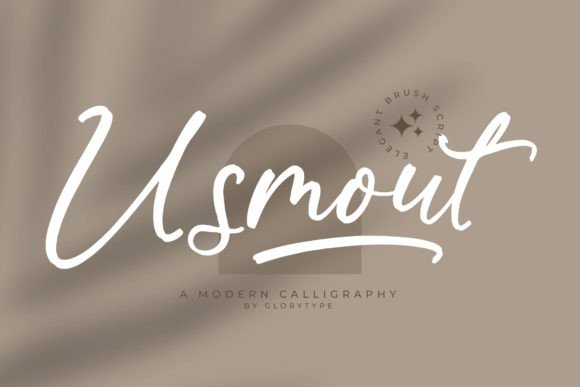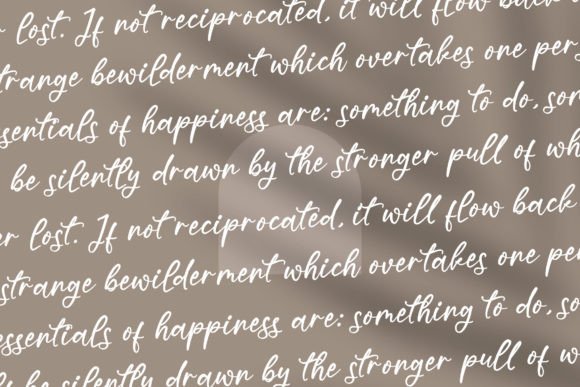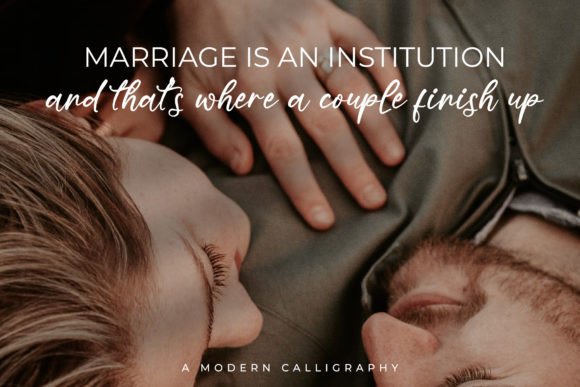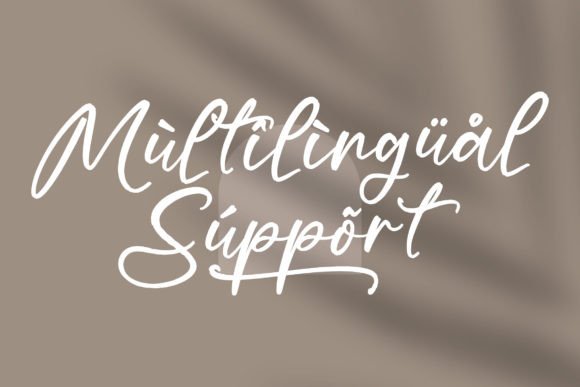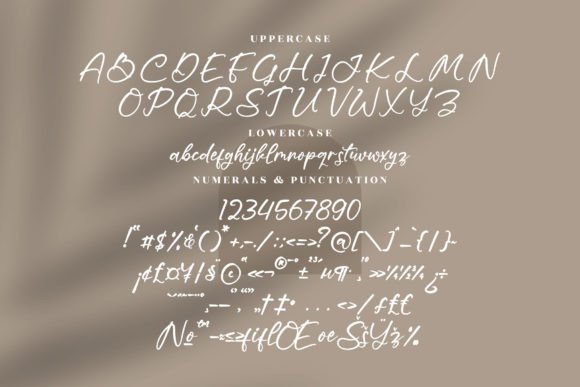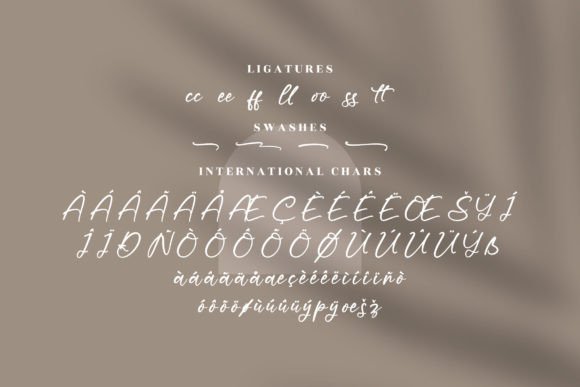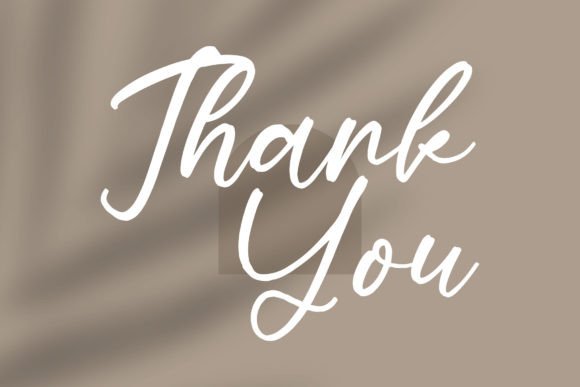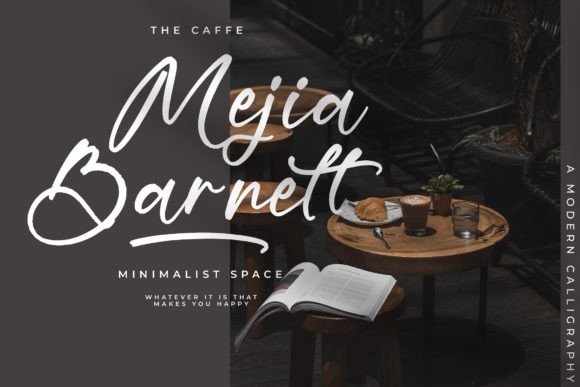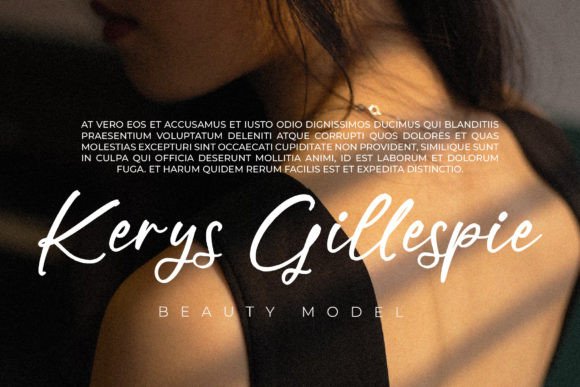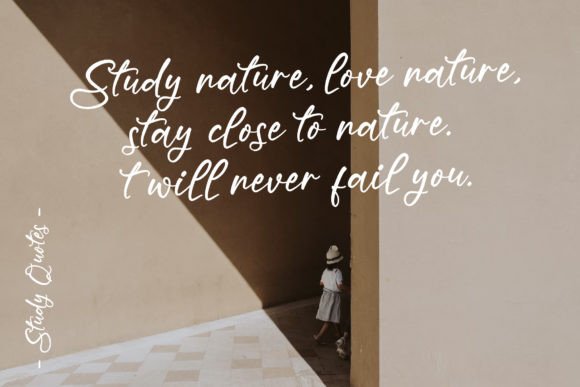
Usmout Font
About Usmout Font
**Usmout Modern Calligraphy Font – Elegance for Stylish Projects**
The Usmout Modern Calligraphy Font is a sophisticated typeface that brings an air of elegance and style to your design projects. With its modern calligraphy style, this font is versatile and suitable for a wide range of creative applications. Here’s how you can effectively use the Usmout Modern Calligraphy Font in your design work:
1. **Logos:** Craft memorable and elegant logos for businesses, brands, or personal ventures. The Usmout font’s modern calligraphy adds a touch of sophistication to your logo designs.
2. **Branding Projects:** Create a distinctive brand identity with the Usmout font for brand names, taglines, and promotional materials. It exudes modernity and luxury.
3. **Homeware Designs:** Apply the font to homeware products such as kitchenware, tableware, and home decor items. Its modern calligraphy style adds a contemporary and upscale feel to home designs.
4. **Product Packaging:** Enhance the visual appeal of product packaging for a wide range of products, from cosmetics to gourmet foods. The Usmout font gives packaging a stylish and high-end look.
5. **Mugs:** Customize mugs with personalized messages, quotes, or designs using the Usmout font. It adds a touch of elegance to coffee cups and gift items.
6. **Quotes:** Create visually striking quote graphics for social media posts, websites, or print materials. The font’s modern calligraphy enhances the impact of inspirational or motivational quotes.
7. **Posters:** Design eye-catching posters for events, promotions, or artistic displays. The Usmout font’s calligraphic style adds a sense of contemporary sophistication to poster designs.
8. **Shopping Bags:** Customize shopping bags for boutiques, fashion brands, or retail businesses. The font imparts a chic and modern appearance to shopping bags.
9. **T-Shirts:** Design trendy and fashionable T-shirts with the Usmout font for slogans, logos, or graphics. It elevates the overall look of apparel designs.
10. **Book Covers:** Apply the font to book covers, especially for novels, lifestyle books, or publications that require a modern and stylish presentation.
11. **Name Cards:** Create elegant and memorable name cards for individuals or businesses. The Usmout font adds a contemporary and refined touch to contact details.
12. **Invitation Cards:** Design invitation cards for special occasions such as weddings, parties, or events. The font’s modern calligraphy enhances the elegance of invitations.
13. **Greeting Cards:** Customize greeting cards for holidays, birthdays, or special occasions. The font’s calligraphic style adds a modern and sophisticated touch to cards.
14. **Labels:** Design labels for products, gifts, or packaging using the Usmout font. It makes labels look contemporary and visually appealing.
15. **Photography Watermarks:** Create professional and stylish watermarks for your photography portfolio or online images using the Usmout font.
16. **Special Events:** Apply the font to materials for special events, such as gala dinners, award ceremonies, or upscale gatherings. It sets the tone for modern luxury and style.
17. **Other Lovely Projects:** Let your creative ideas flow, and use the Usmout font in any design project where a beautiful modern calligraphy style is desired. It adds an elegant touch to various creative endeavors.
The Usmout Modern Calligraphy Font’s combination of modernity and versatility makes it an excellent choice for adding sophistication and contemporary style to your design projects. Whether you’re working on branding, packaging, invitations, or personal creations, this font can help you achieve a stunning and memorable visual impact. Its modern calligraphy style brings a sense of elegance and refinement that appeals to a broad range of audiences and design contexts.